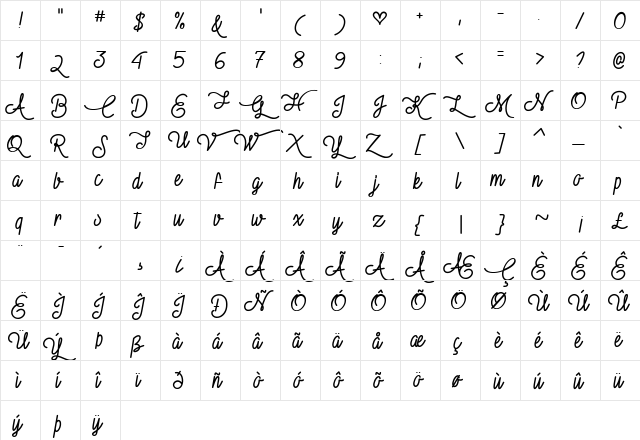
Vampire Kiss Demo Regular
Design Context for Vampire Kiss Demo Typeface
Vampire Kiss Demo is a composed and adaptable typeface that performs quietly and consistently across a wide range of design contexts.